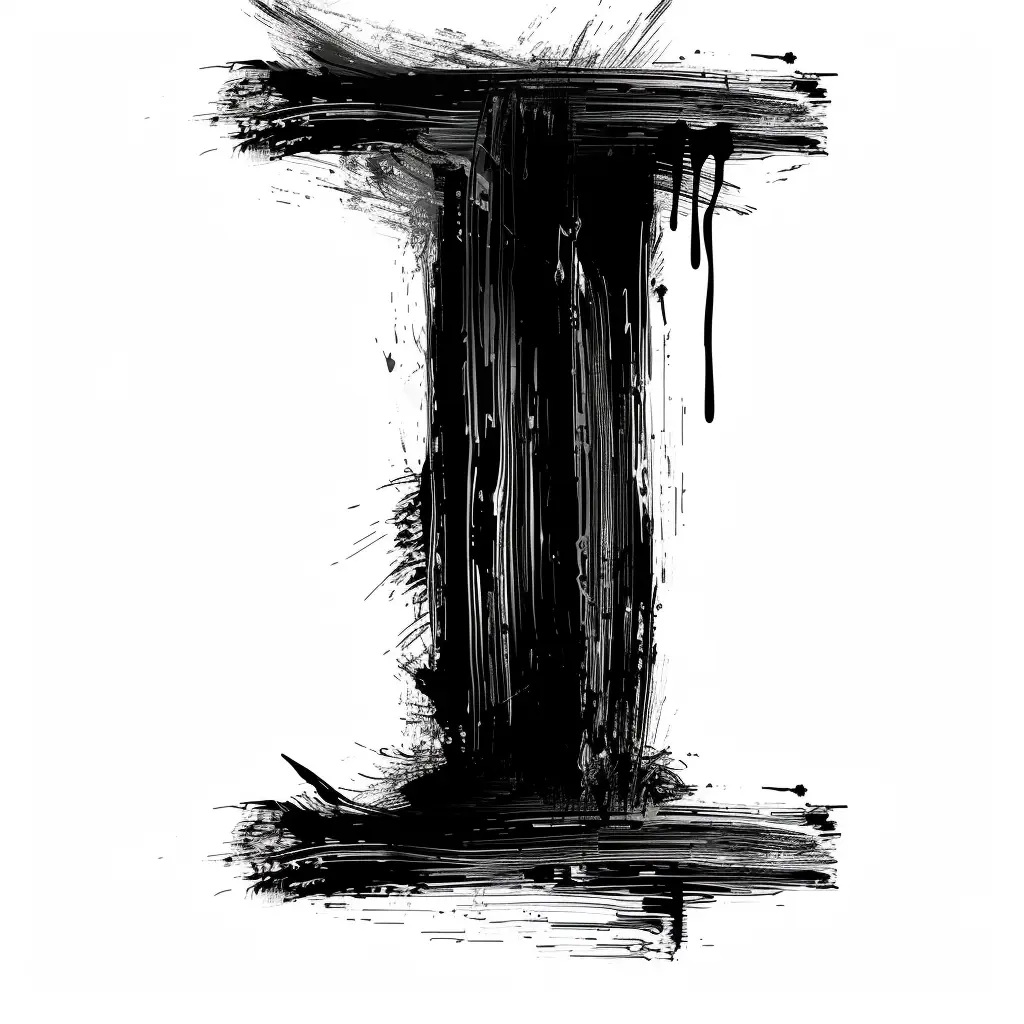
This image features a bold, abstract representation of the letter "I," created with rough, expressive black brushstrokes against a stark white background. The style is raw and textured, with dripping paint, splatters, and layered strokes that give it a dynamic, almost chaotic energy. The high-contrast black-and-white palette emphasizes the letter’s form while highlighting the artistic, hand-painted quality of the composition.